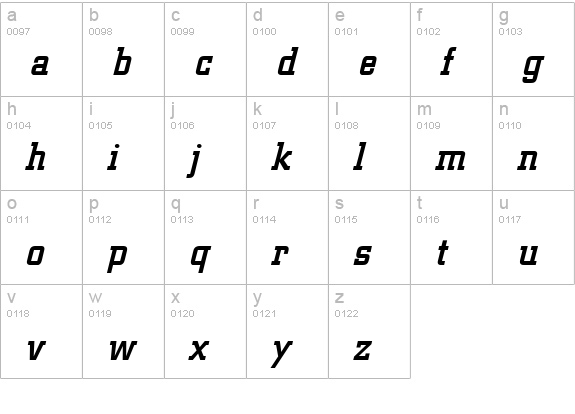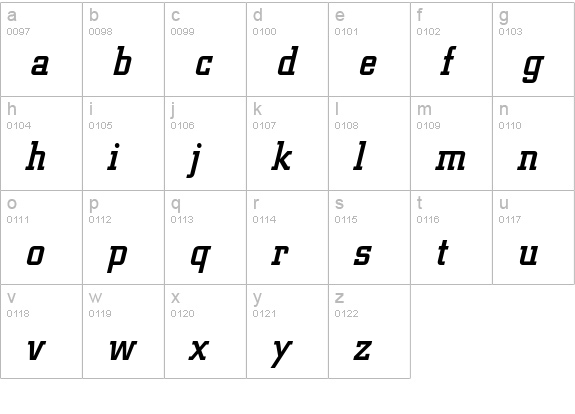
City (R) Medium Italic is a balanced, medium-weight, italic variant in the City typeface family \xE2\x80\x94 well suited to sub-headlines, navigation, and balanced editorial work.
City (R) Medium Italic font is a sleek and modern typeface that exudes elegance and sophistication. Its medium weight and italic style add a touch of flair to any design project, making it perfect for both headers and body text. The clean lines and sharp angles of this font make it ideal for conveying a sense of professionalism and style. What's even better is that City (R) Medium Italic font is available for free download at FontsMarket.com. This means you can easily access this stylish font and use it in your projects without any cost. Whether you're working on a website, logo, or print materials, City (R) Medium Italic font will elevate your design and give it a polished finish. Don't miss out on this fantastic opportunity to enhance your work with this beautiful typeface.